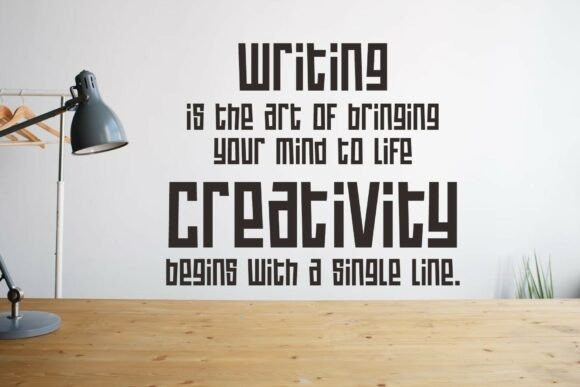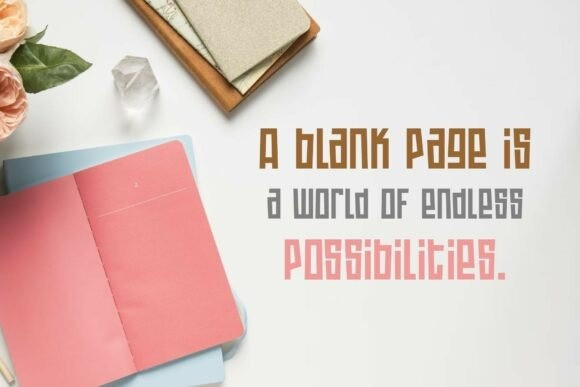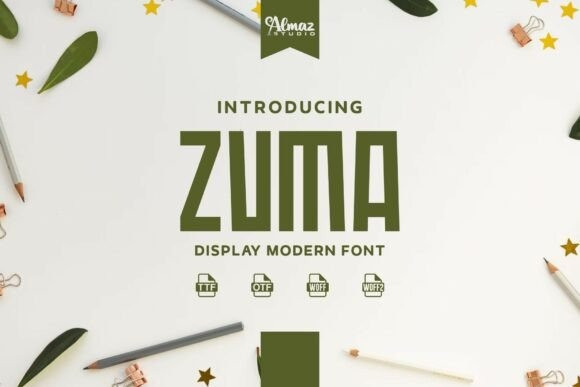
Zuma Typeface
Zuma Typeface is a tall and modern display font that exudes strength, style, and elegance. Its elongated letterforms and clean, sharp edges create a bold visual statement, perfect for headlines, posters, branding, and editorial designs that demand attention.
With its minimal yet impactful design, Zuma strikes the perfect balance between contemporary aesthetics and timeless appeal. Whether used for digital or print projects, it delivers a professional, high-quality finish.
Zuma is ready to make your designs stand out with confidence and sophistication.